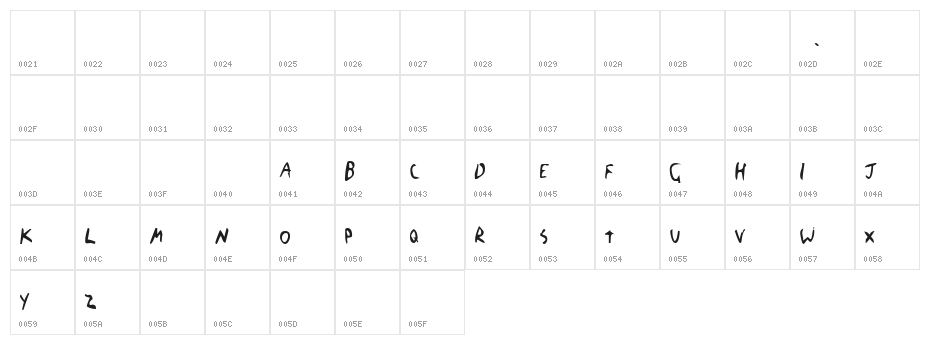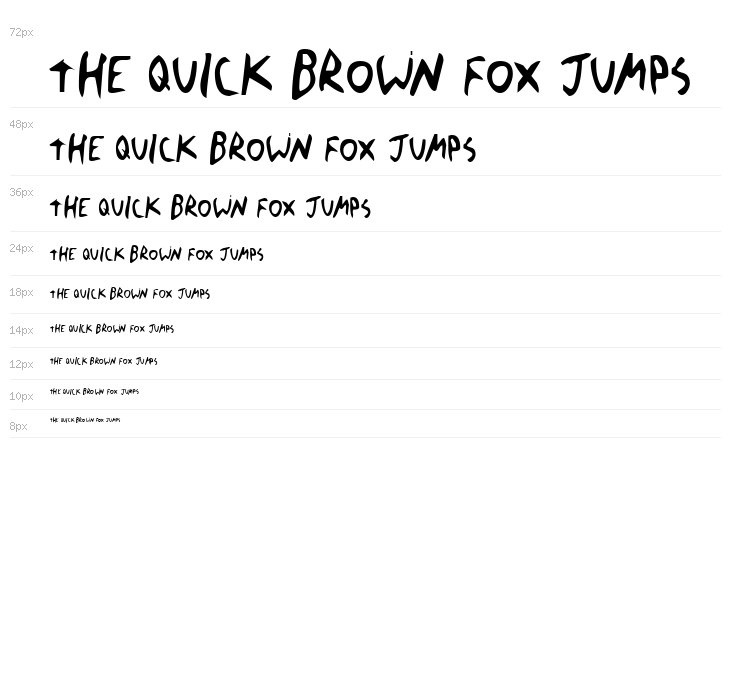
The Blick Font Font
The Blick Font Description
This font features a bold and dynamic style with a handwritten appearance. The characters are slightly irregular, giving it a casual and artistic feel. The strokes are thick and varied, adding a sense of movement and energy to the text. The uppercase letters are prominent and expressive, while the lowercase letters maintain a consistent flow. The overall design is playful yet assertive, making it suitable for creative projects that require a personal touch.